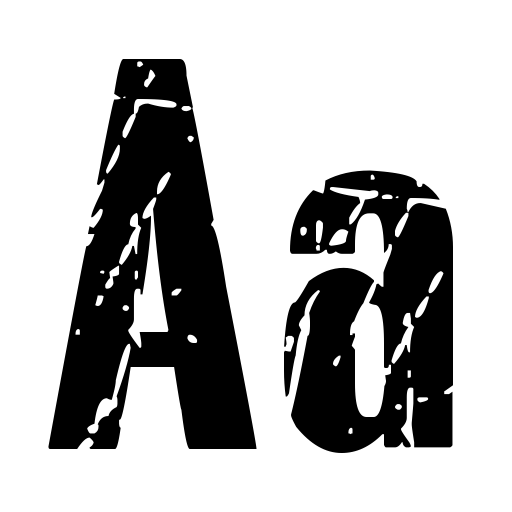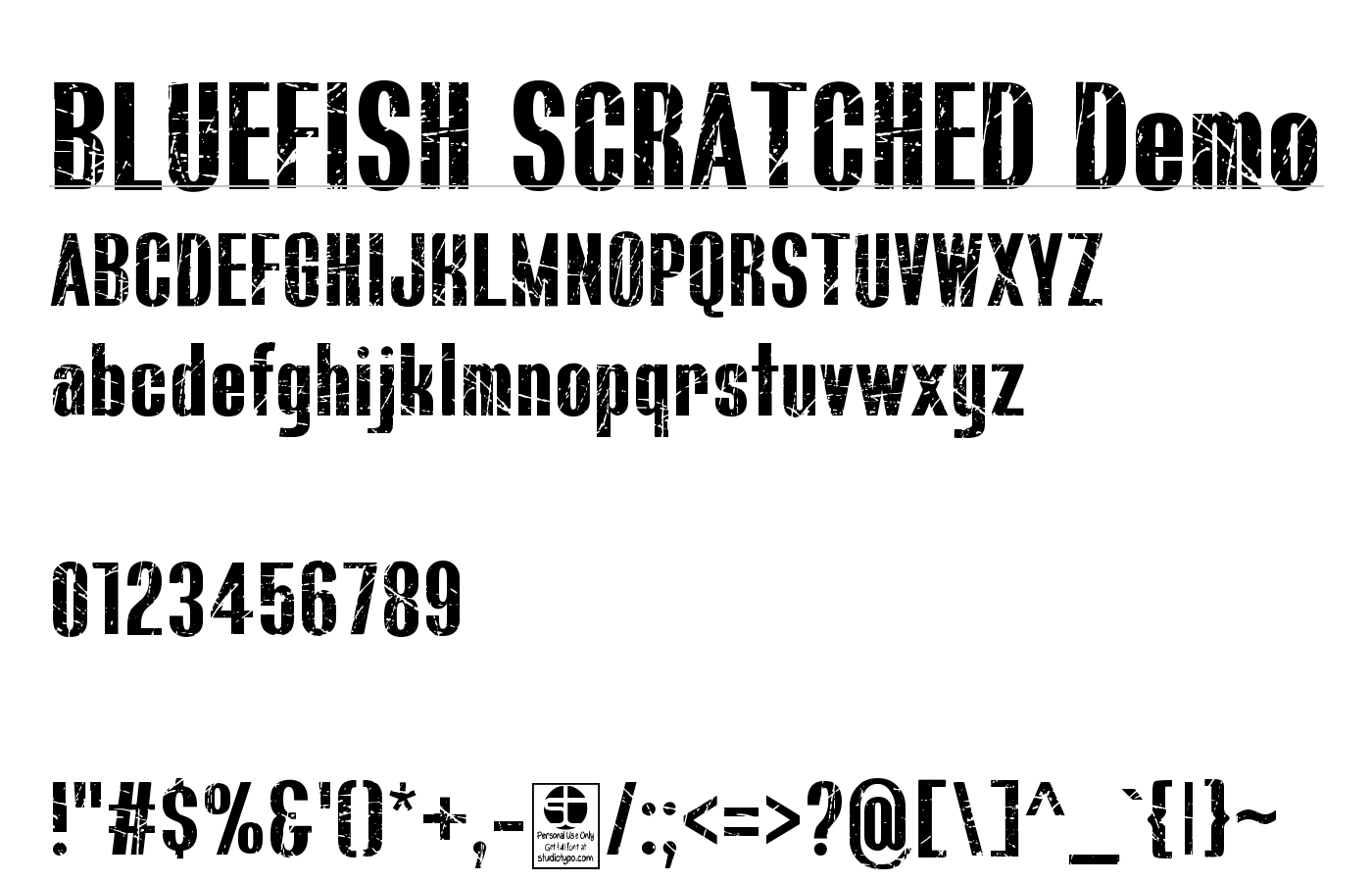
BLUEFISH SCRATCHED Demo is a bold, condensed sans serif font with a distressed, grunge texture that gives it a rugged and vintage feel. Its tall, narrow letterforms and worn, scratched details make it perfect for edgy designs, urban streetwear branding, posters, and headlines that need to convey attitude and raw energy. This font works best in display settings where its distinctive roughness adds character and impact.
BLUEFISH SCRATCHED Demo Font
About BLUEFISH SCRATCHED Demo Font
| Font family | BLUEFISH SCRATCHED Demo Font |
| Designer | Mehmet Abacı |